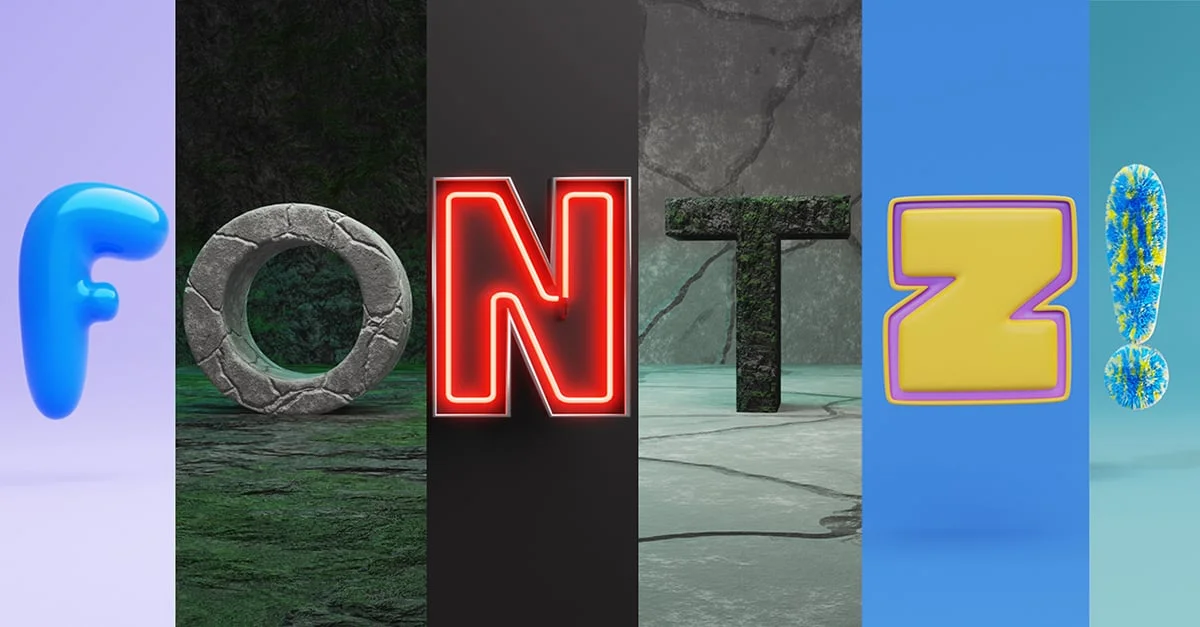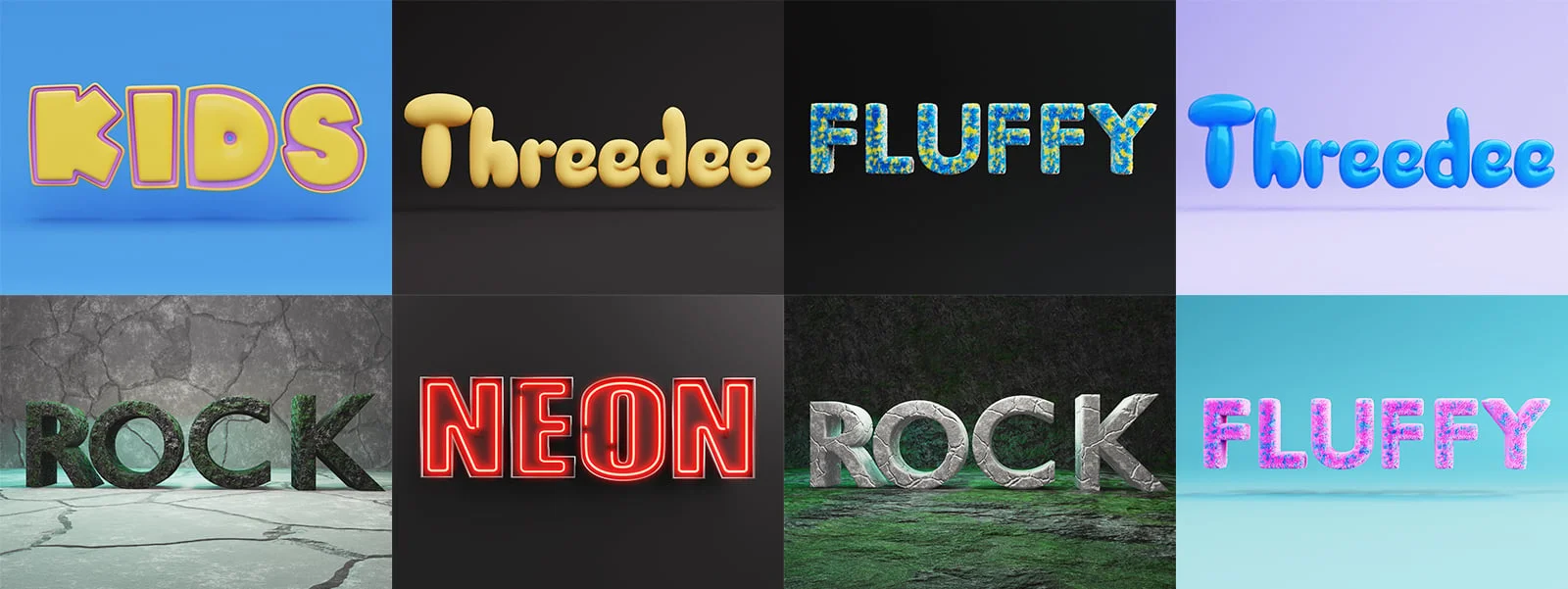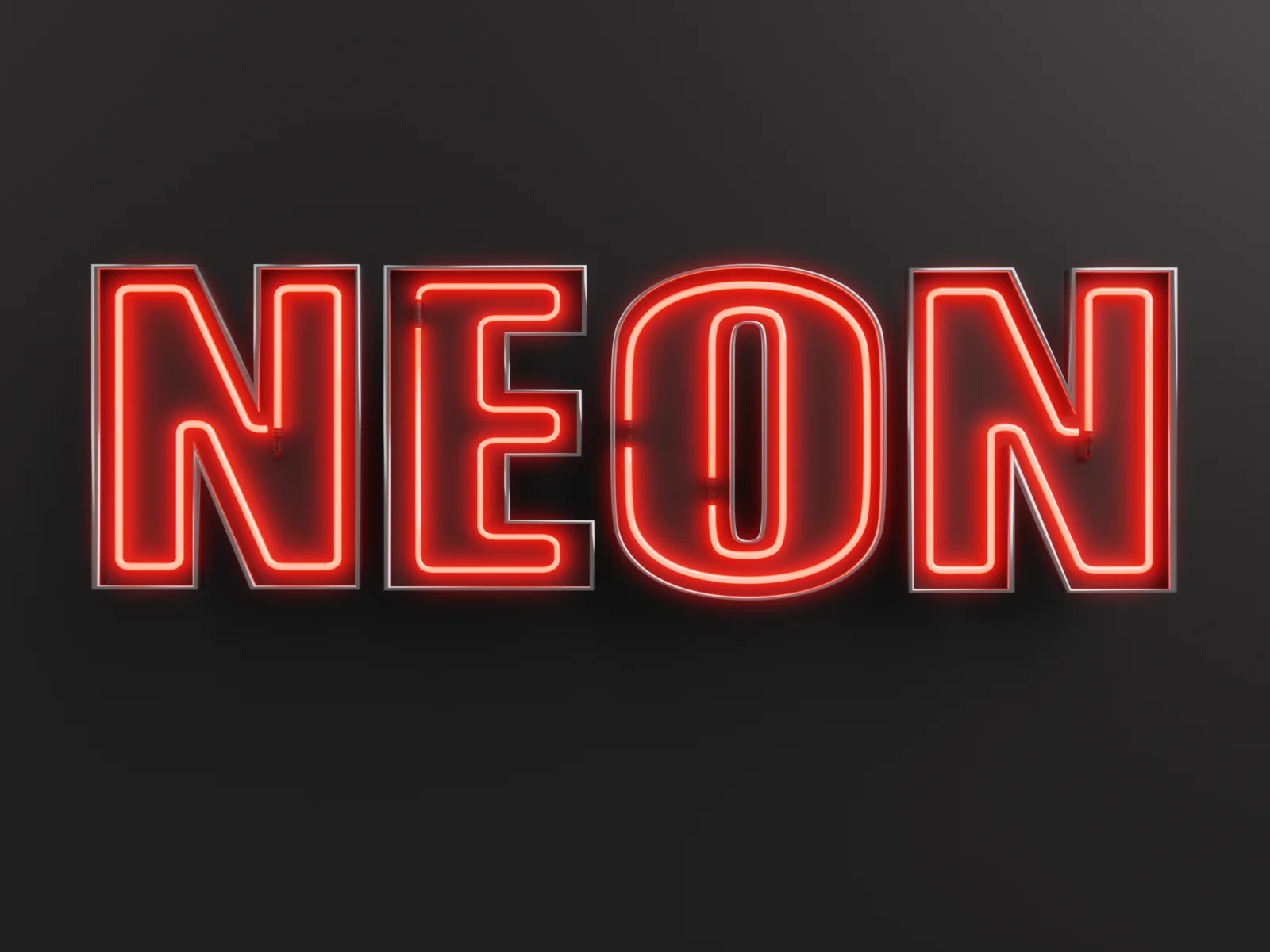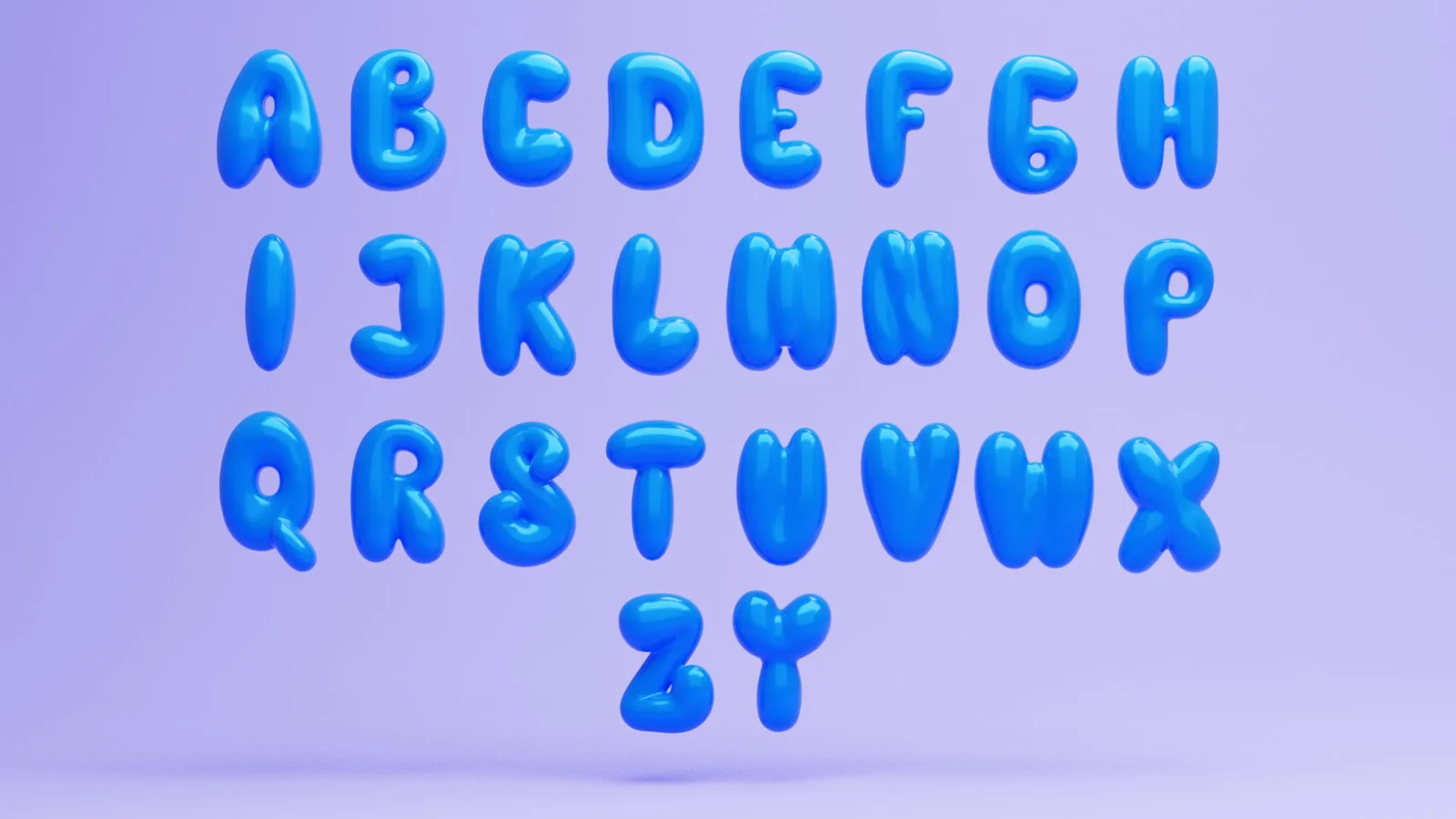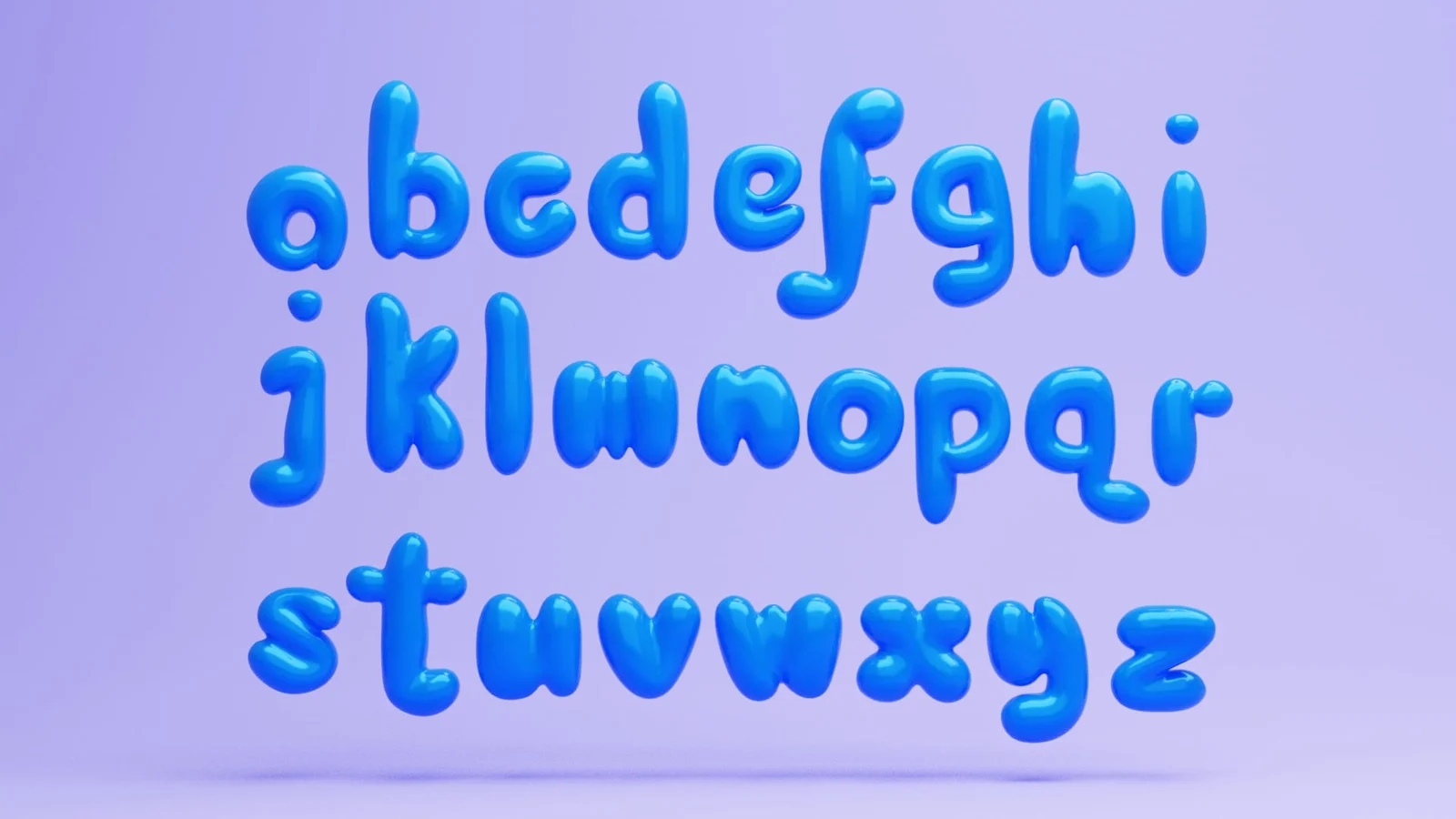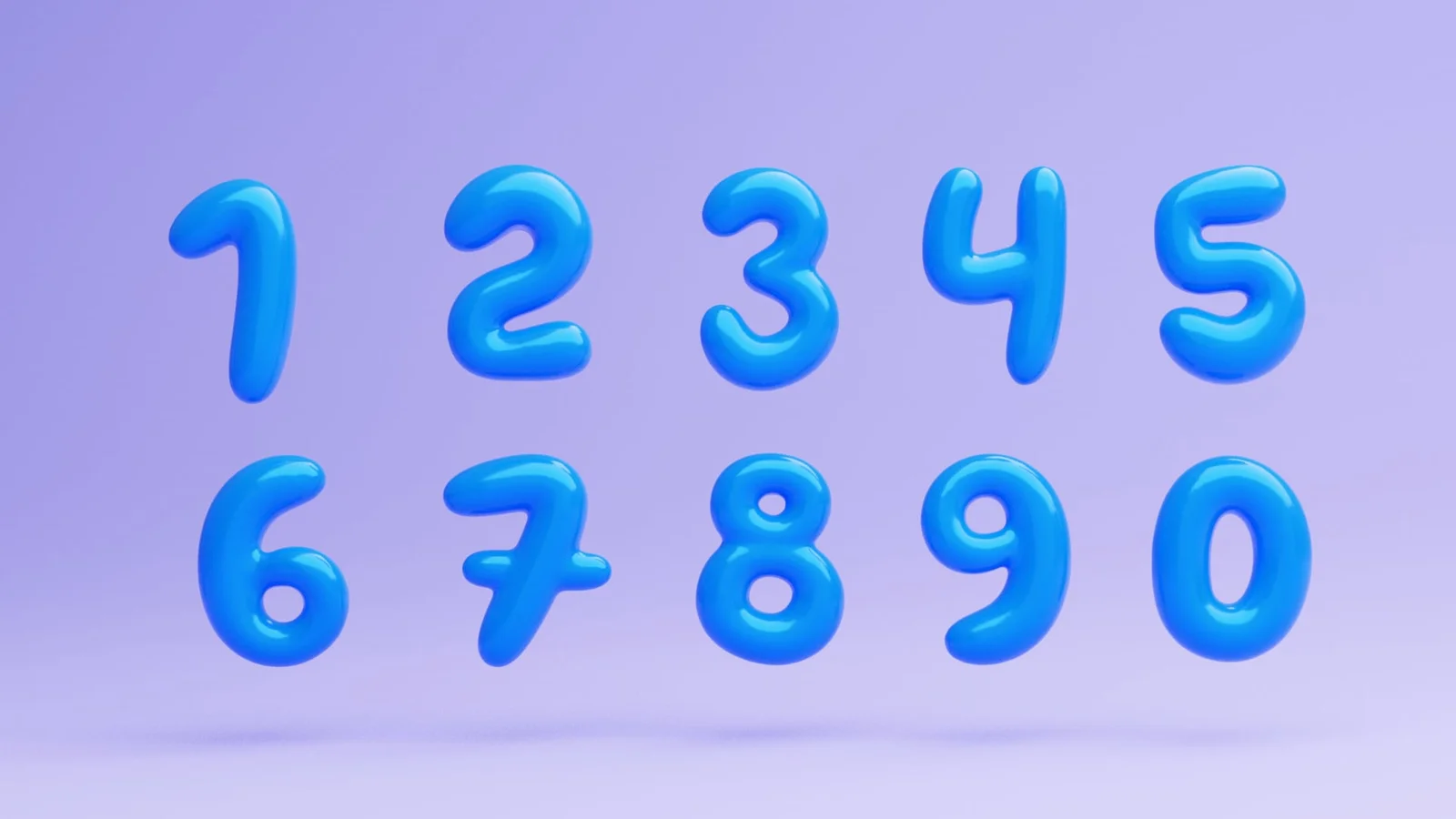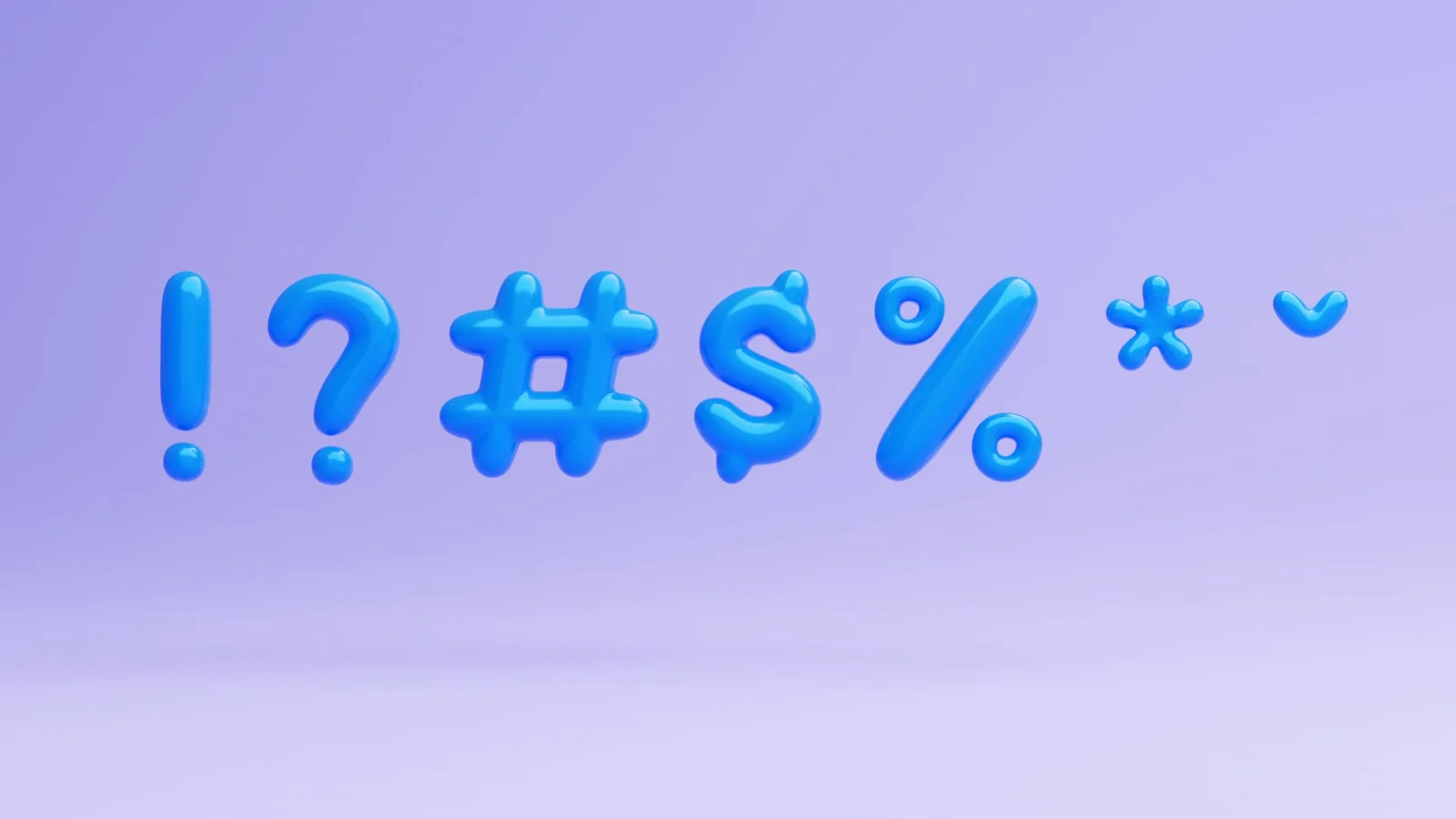
This asset pack contains a collection of eight cartoonish 3D fonts. The package includes the original Blender source files for custom modifications. A Blender plugin is also provided to facilitate easier manipulation of the included fonts.